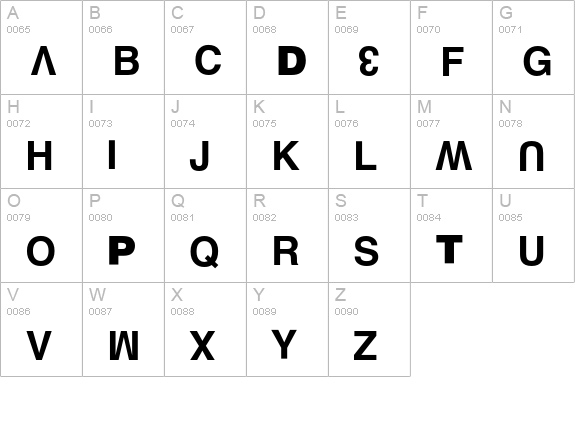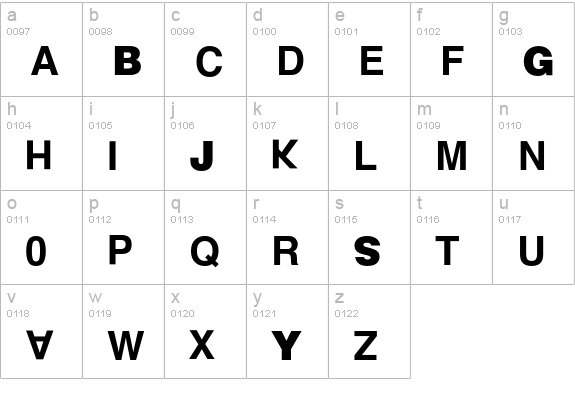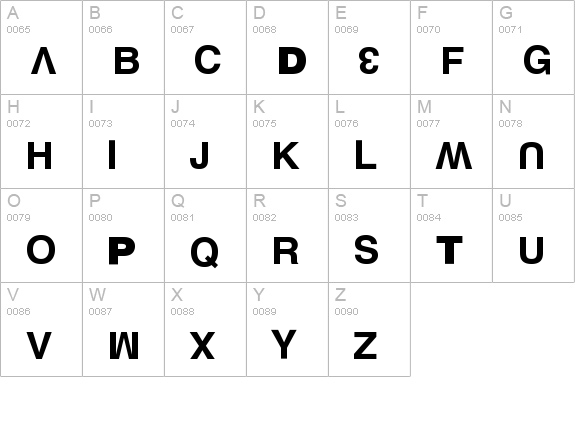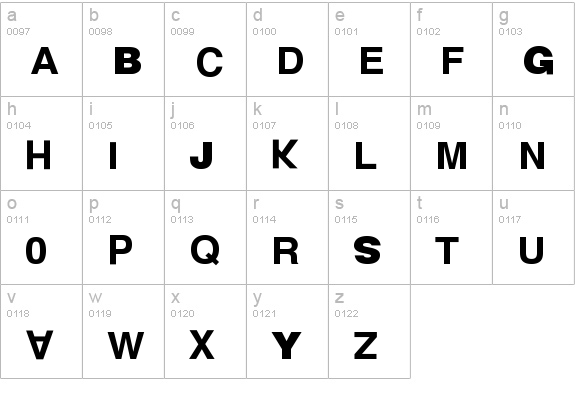
Introducing FastFoodClean font, a fresh and modern typeface perfect for all your fast food and restaurant-themed design projects. This font exudes a sense of speed and efficiency, making it ideal for conveying the fast-paced nature of the food industry. With its clean lines and bold lettering, FastFoodClean font is sure to grab attention and make a statement. What's even better? FastFoodClean font is completely free to download at FontsMarket.com. That's right, you can easily access this stylish and versatile font without having to spend a dime. Whether you're designing menus, posters, or social media graphics, FastFoodClean font is a fantastic choice that will help your creations stand out. Don't miss out on this fantastic opportunity to elevate your designs with the sleek and professional look of FastFoodClean font. Download it now and start creating eye-catching visuals that will leave a lasting impression on your audience.